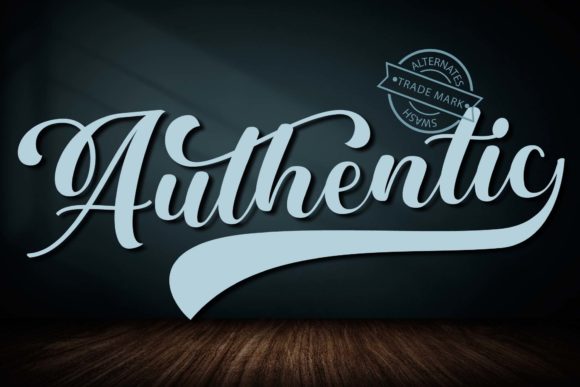
The Quest for the Perfect Font: Discovering Authentic
I still remember the countless hours I spent searching for the ideal font for a wedding invitation project. My client wanted something elegant, yet personal, and I was determined to deliver. As I scrolled through font after font, I knew I needed something special. That’s when I stumbled upon Authentic, a unique and elegant handwritten font that stole my heart. In this article, I’ll share my experience with Authentic, its features, and how to make the most of it in your designs.
First Impressions: What I Love About Authentic
Here’s what makes Authentic a standout font:
- ✨ Elegant and refined, perfect for wedding invitations, thank you cards, and greeting cards
- 💕 Unique and personalized style that’s sure to impress
- 🎨 Versatile and suitable for various design projects, from logos to social media graphics
The Honest Review: A Few Quirks to Consider
While Authentic is an amazing font, there are a few things to keep in mind:
- 🤔 Limited availability of certain characters, so be sure to check the font’s capabilities before using it
- ⚠️ May require some adjustments to work well with other fonts or design elements
The Story Behind Authentic: Designer Inspiration
Authentic was created with the intention of capturing the essence of handmade elegance. The designer aimed to craft a font that would evoke feelings of warmth, love, and sophistication. With its unique character set and beautiful swashes, Authentic is sure to bring a touch of personality to any design project.
| Font Name | Authentic Font |
| Author | Doehantz Studio |
| What is Authentic font? | Authentic is a unique and elegant handwritten font, perfect for designs requiring a personalized style. |